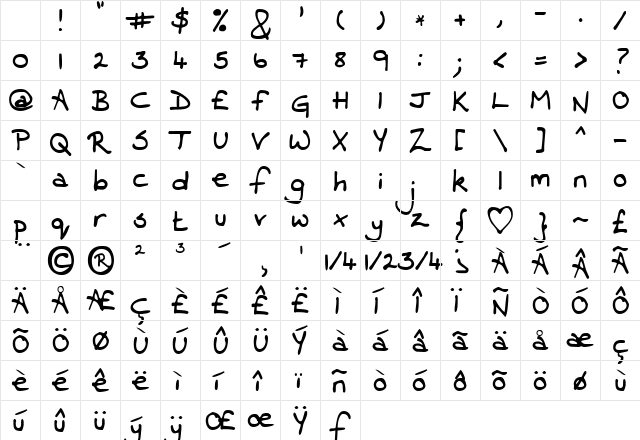
Complete KG Contrary Mary Regular glyph index. Displaying only characters natively supported by KG Contrary Mary Regular font.
KG Contrary Mary is a composed and adaptable typeface that performs quietly and consistently across a wide range of design contexts.